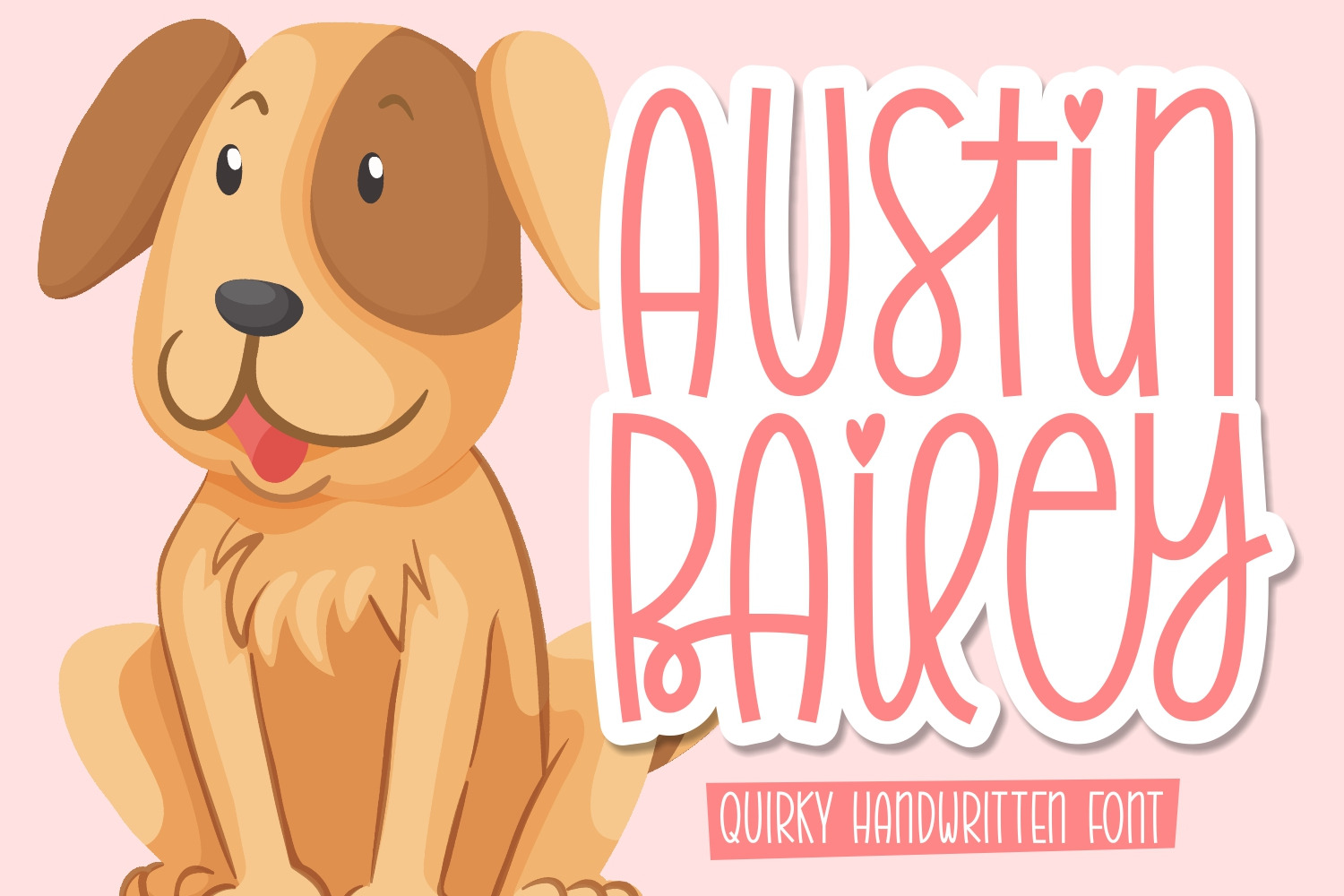
Austin Bailey - Handwriting Font
Austin Bailey is a simple and thin lettered handwritten font. This adaptable font will look great on a variety of design ideas. It will add a fun and friendly touch to each of your projects!